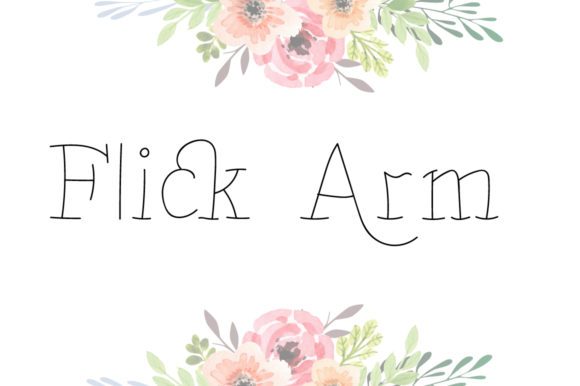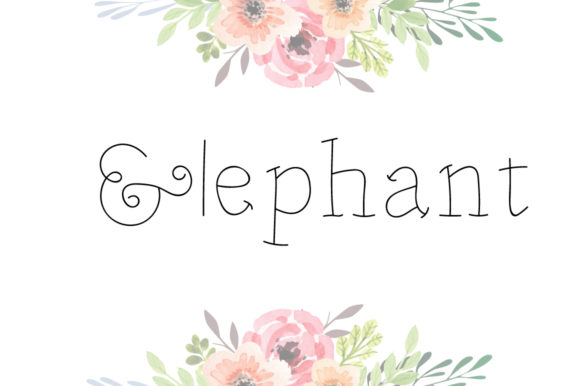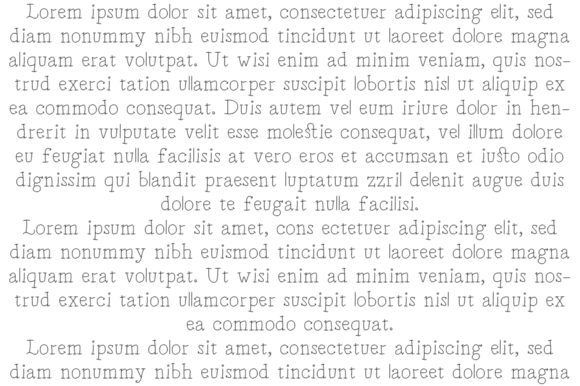
Introduction to Sluckpest Font
Remember the moment when you stumbled upon that perfect font for your creative project? The one that elevates your design and brings your vision to life? For many designers, this moment is a game-changer. It’s what sets their work apart from the rest. And for those who are about to experience this thrill, we’re excited to introduce you to the Sluckpest Font – a unique and playful serif font with a kooky touch.
This design resource is not just another font in the digital library. Its high quality and quirky characters make it an ideal choice for creative projects that require a touch of personality. With a transparent background, the Sluckpest Font is perfect for designers who want to add an extra layer of sophistication to their designs.
Key Features of Sluckpest Font
- Includes 7 unique styles to suit various design needs
- Perfect for use in digital designs, such as logos, icons, and typography
Honest Review: Sluckpest Font
I recently had the chance to work with the Sluckpest Font in a creative project and I must say it was a mixed bag. On the one hand, the font has a unique, hand-drawn feel that can add a lot of character to a design. ✨
- High quality design: The Sluckpest Font has a crisp, clean look that makes it perfect for use in digital design.
- Transparent background: The font comes with a transparent background, making it easy to use in a variety of design contexts.
However, there are a few limitations to keep in mind. ⚠️
- Limited versatility: While the Sluckpest Font is great for certain design projects, it may not be suitable for more formal or professional work.
- Lack of scalability: I found that the font can become pixelated when scaled up, which may limit its use in larger designs.
Overall, I think the Sluckpest Font is a solid design resource, but it’s not without its limitations. If you’re looking for a unique, hand-drawn font for a creative project, the Sluckpest Font may be worth checking out. However, if you need a more versatile or scalable font, you may want to consider other options.
How to Use Sluckpest Font
The Sluckpest Font is a high-quality design resource that offers a unique and creative way to enhance your projects. With its transparent background, this font is perfect for designers who want to add a touch of elegance to their work.
Getting the Most Out of Sluckpest Font
To get the most out of the Sluckpest Font, use it in conjunction with other design elements to create a cohesive look. Experiment with different font sizes, colors, and styles to find the perfect combination for your project.
The Sluckpest Font is perfect for:
- Creative projects that require a touch of elegance.
- Designs that need a high-quality, transparent background.
- Projects that require a unique and creative font style.